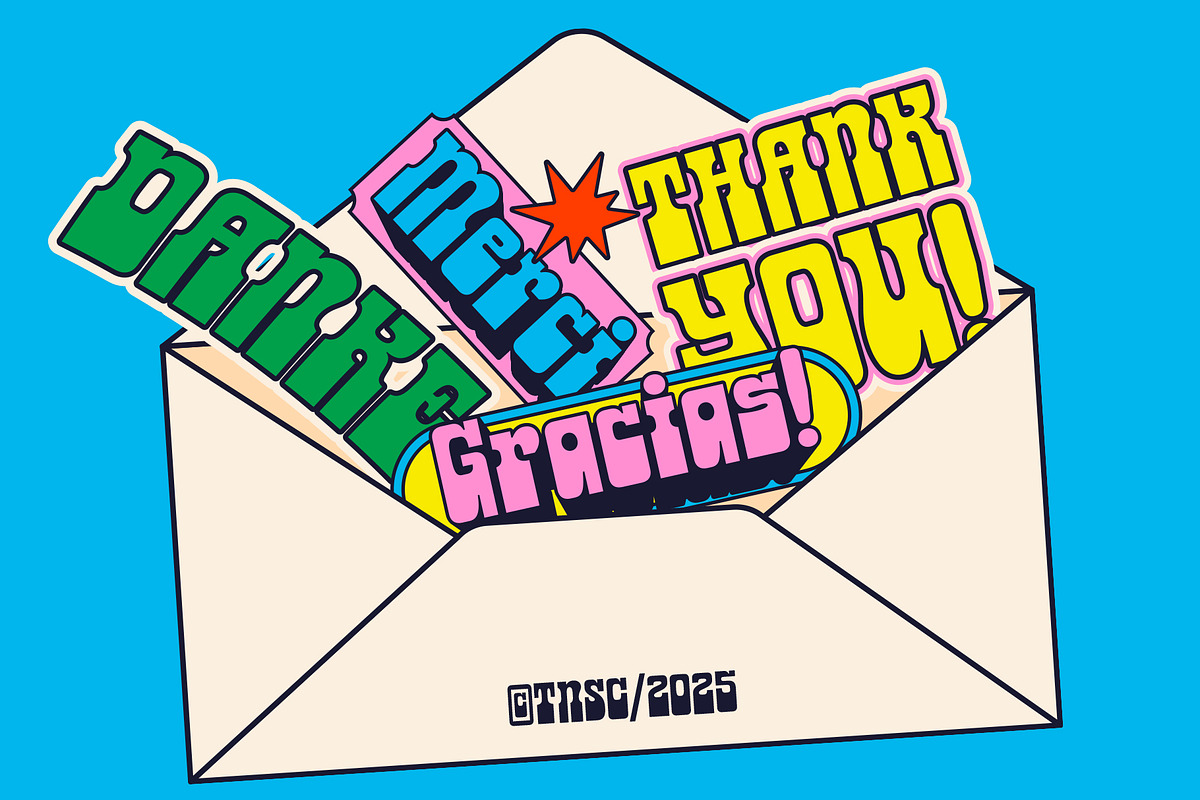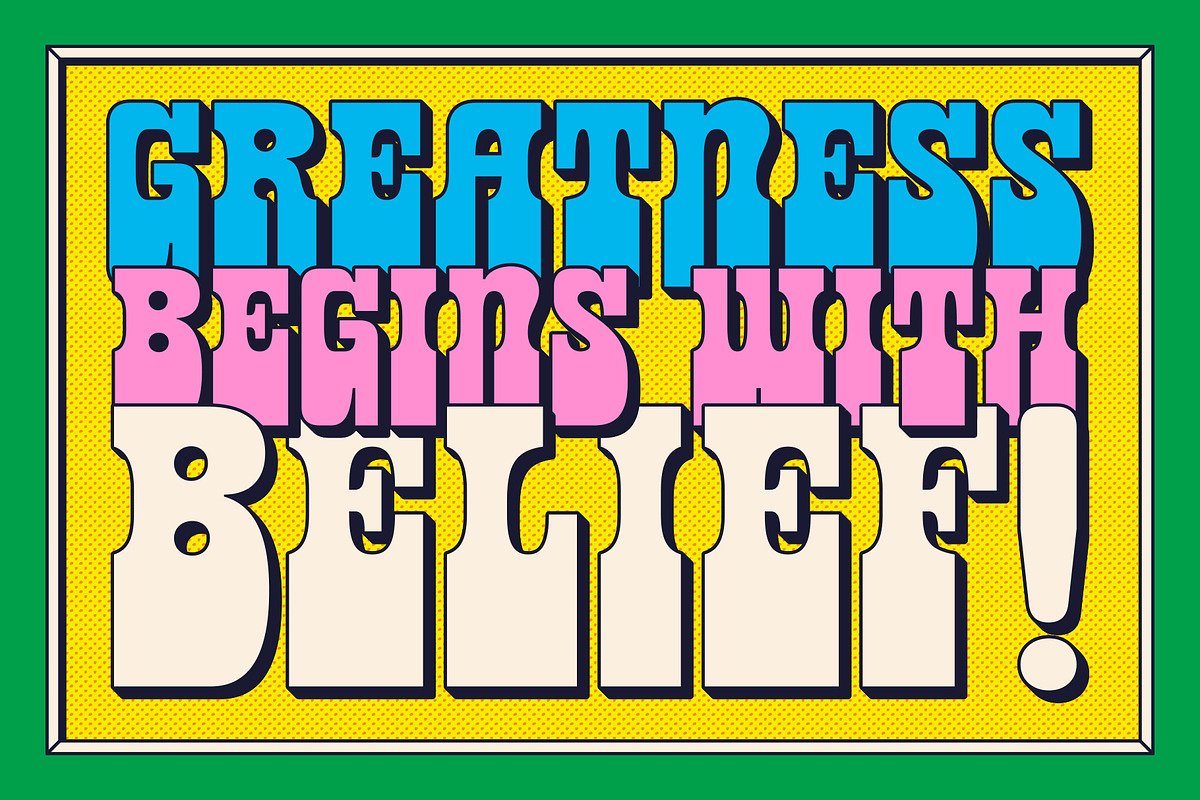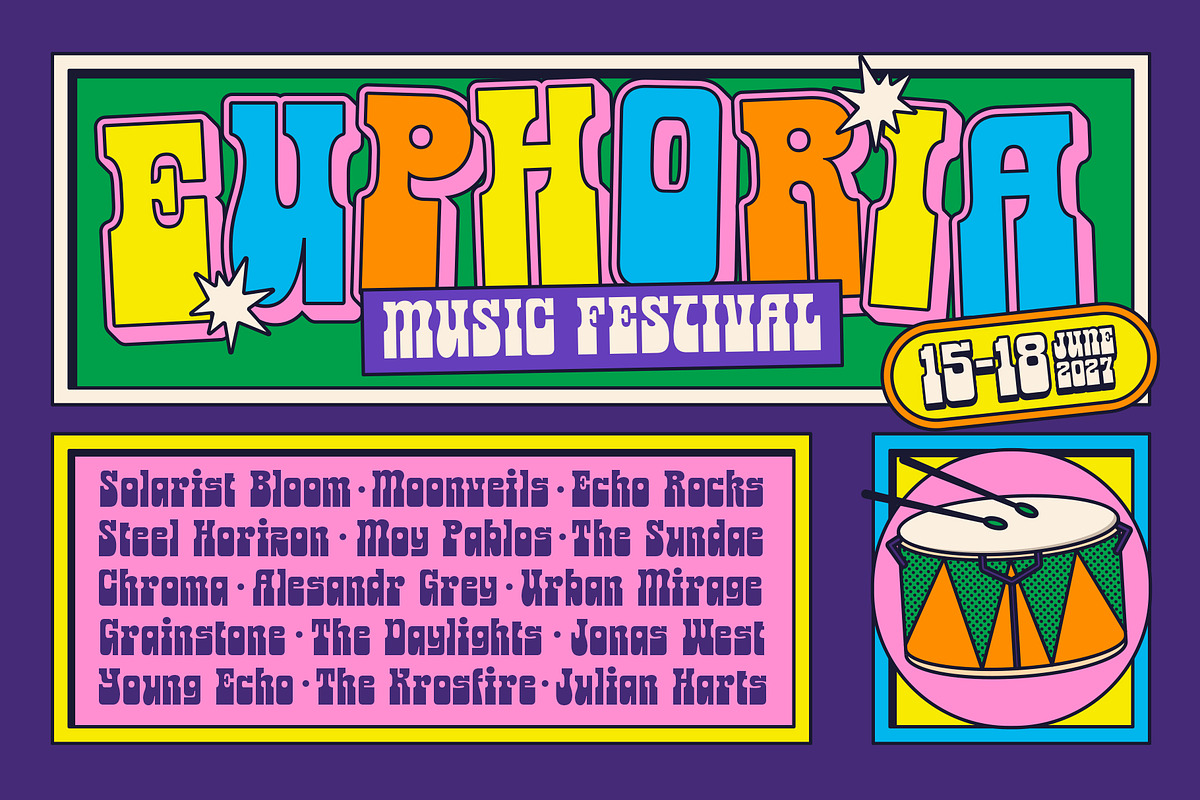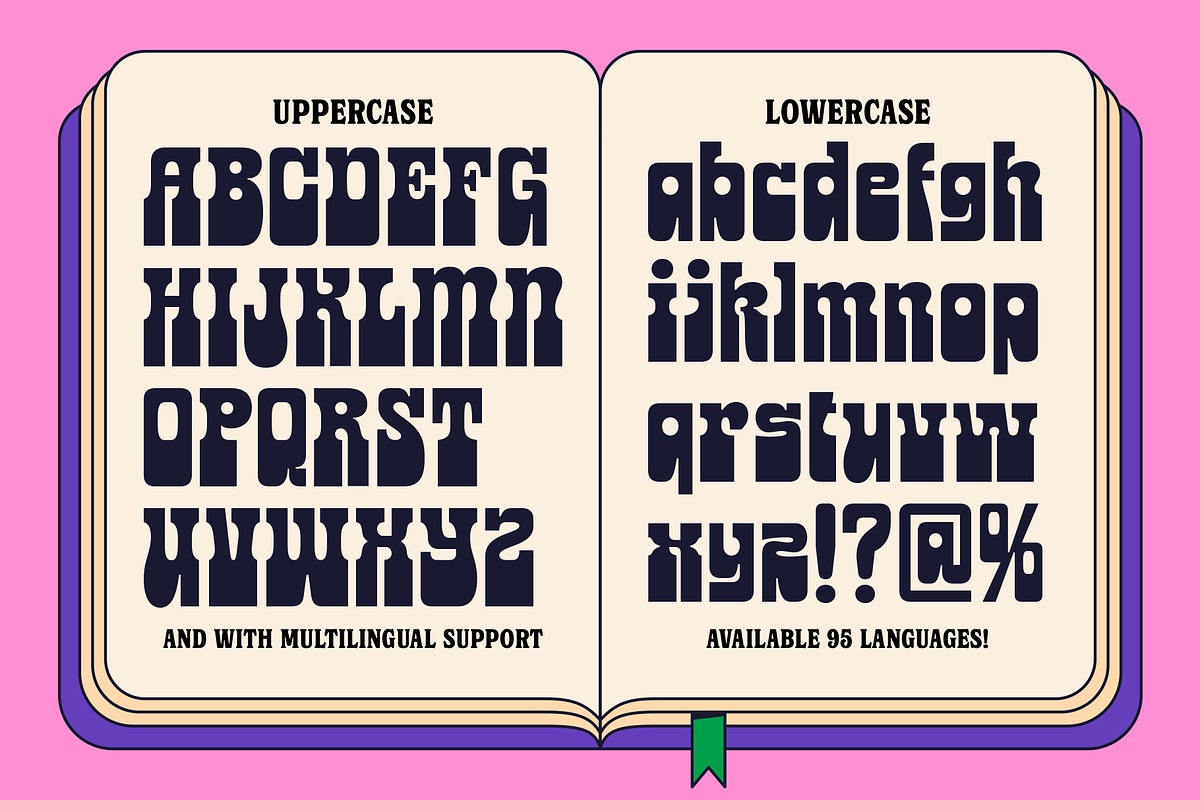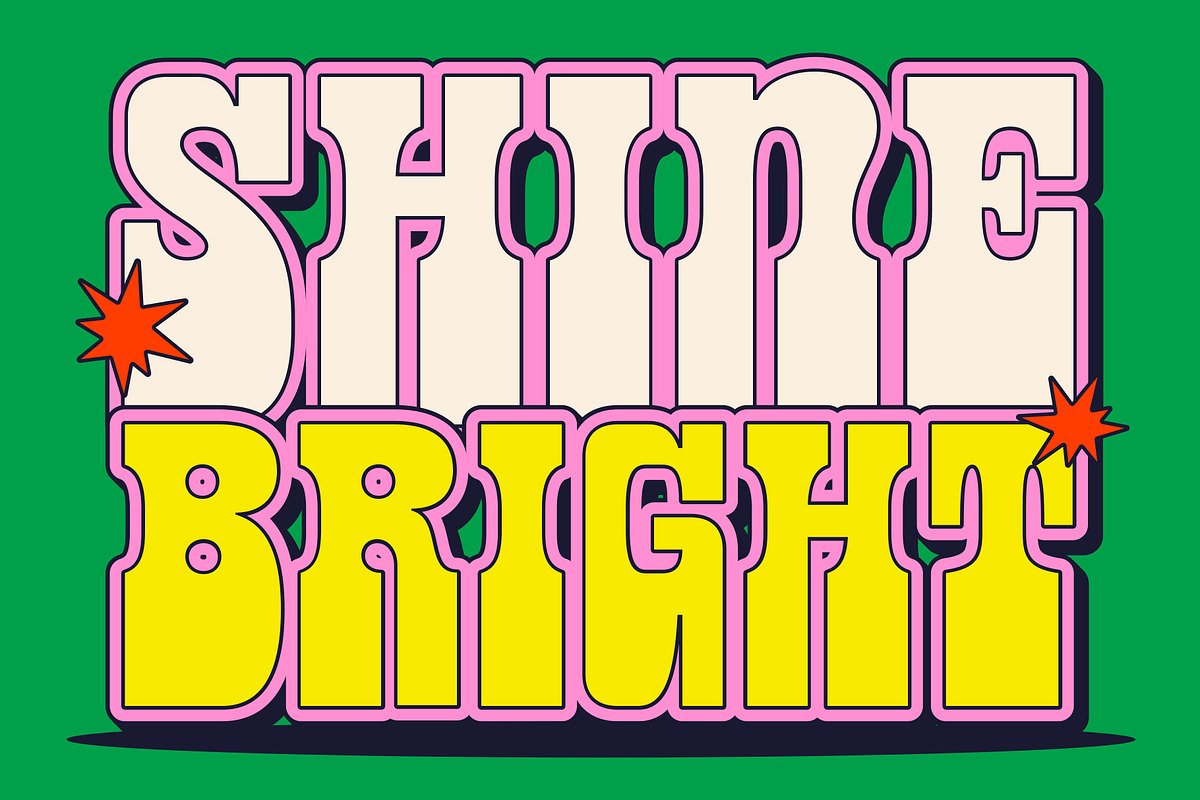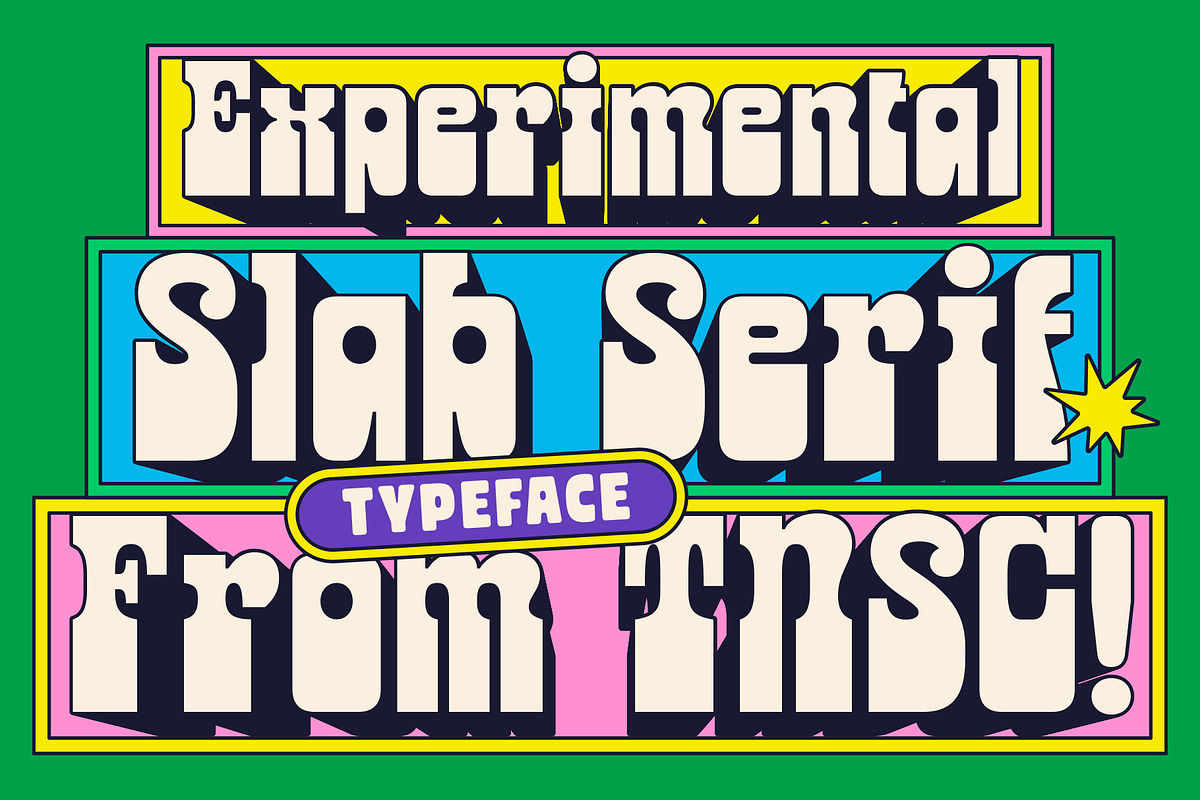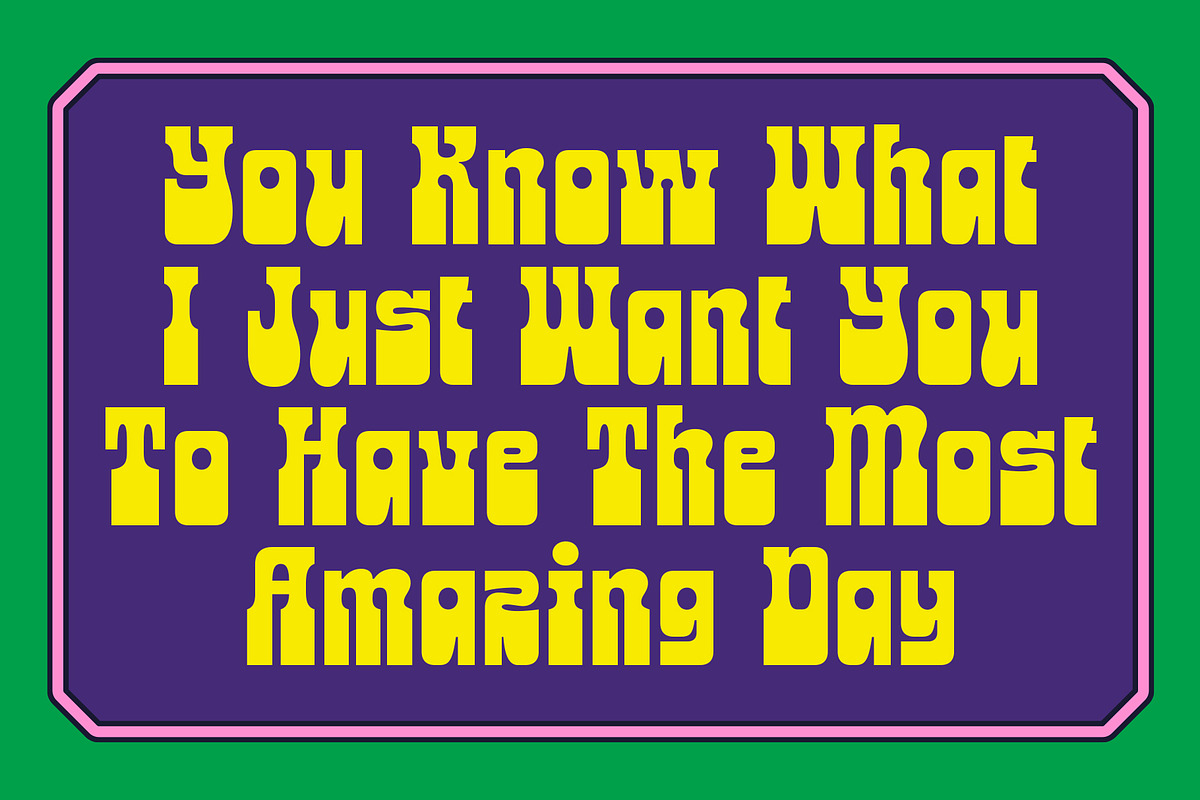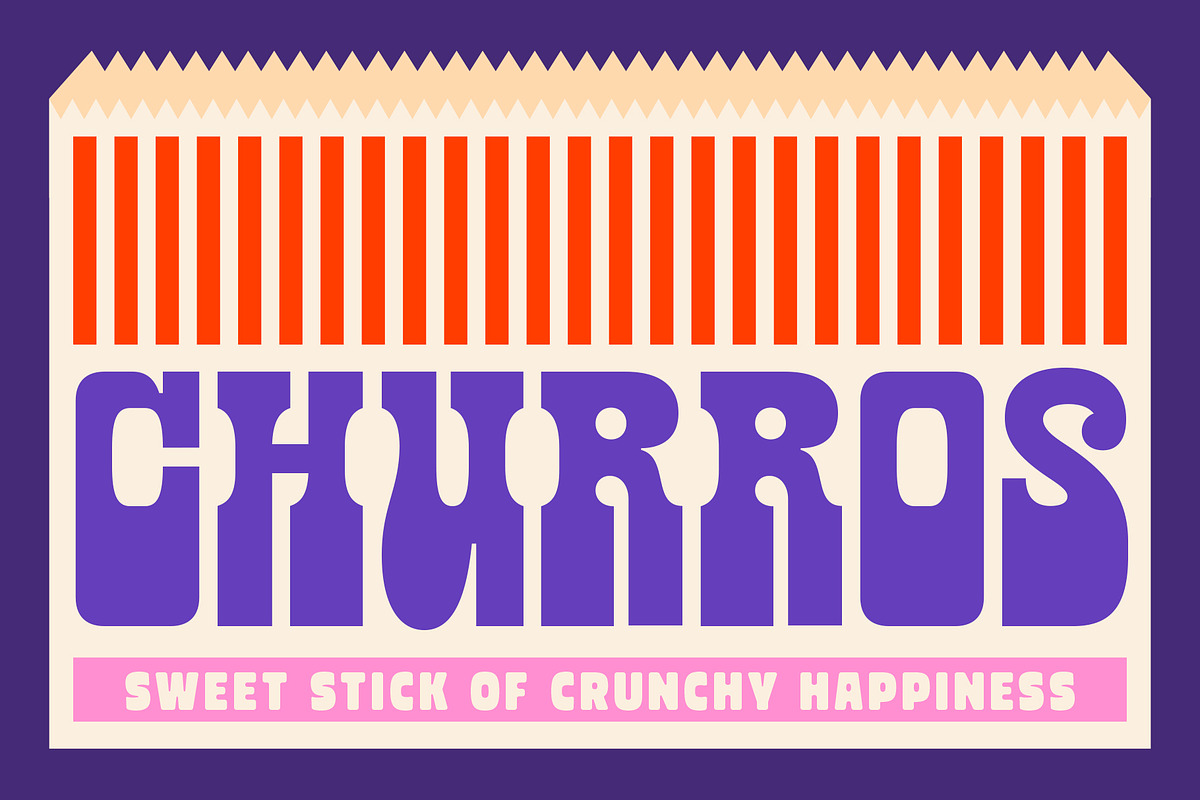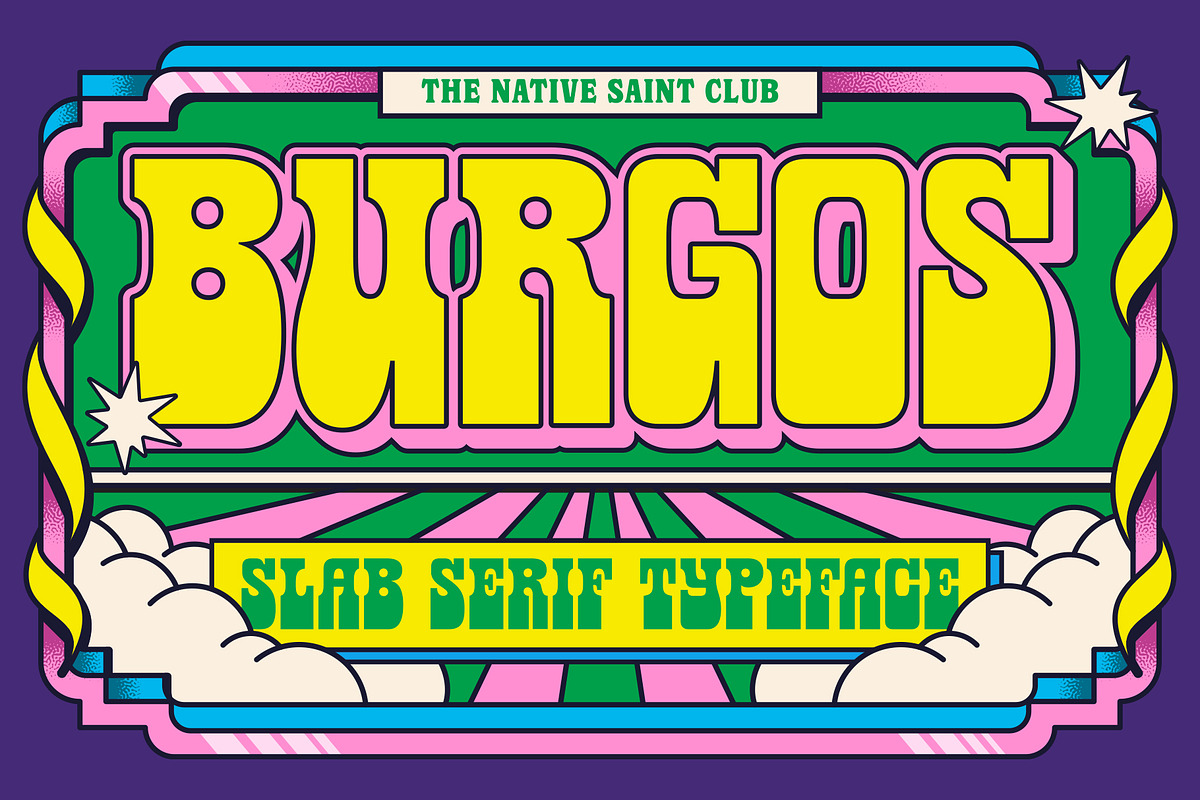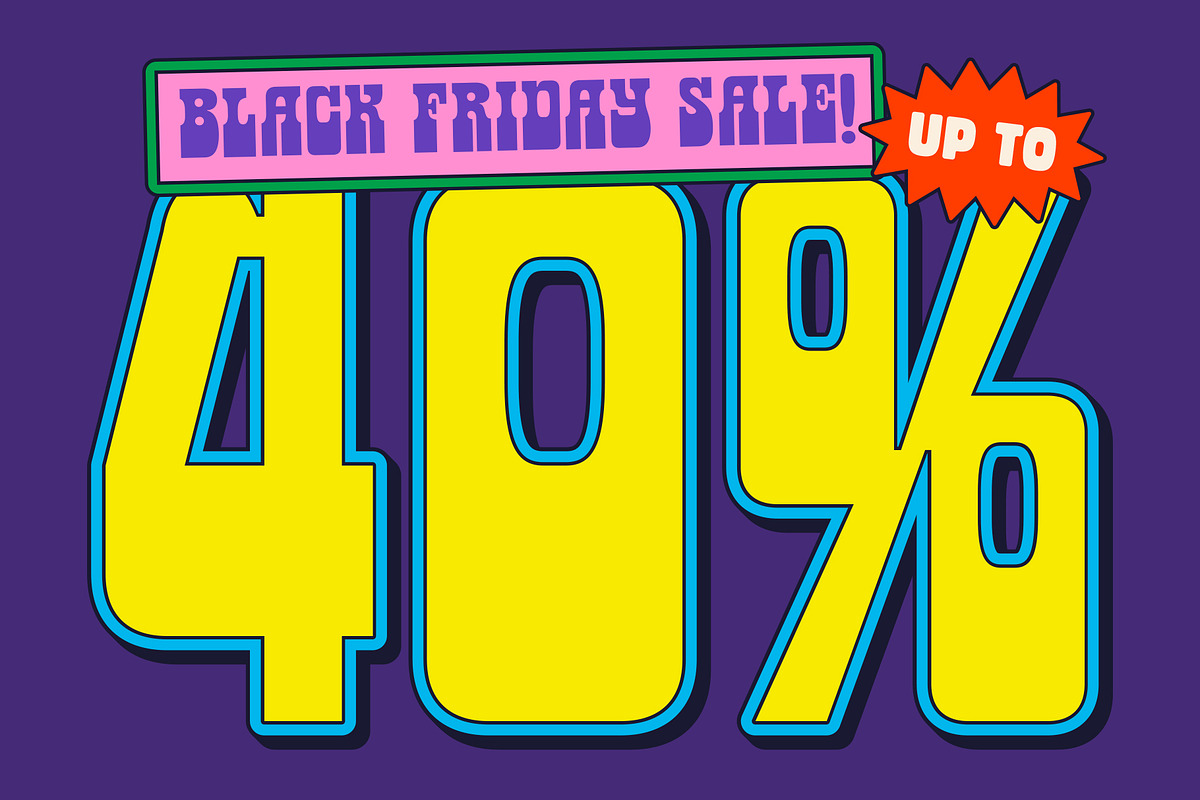
TNSC Burgos - Slab Serif
TNSC Burgos, Bring bold personality to your design with this experimental slab serif typeface. Its chunky shapes, retro vibes, and playful details make it perfect for eye-catching projects. Whether you’re working on branding, posters, packaging, social media, or editorial layouts, this font adds a strong and unique character.